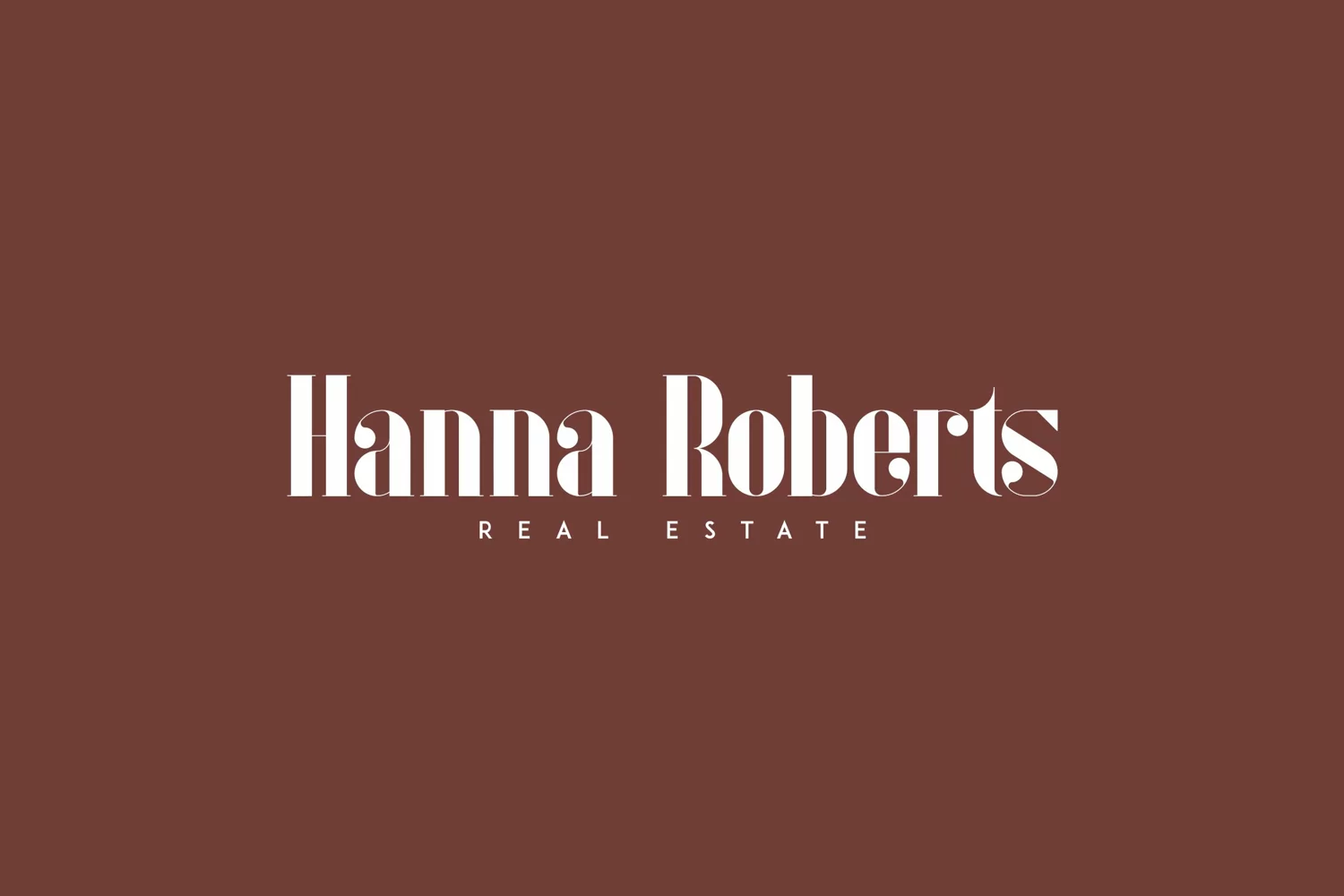
Modern Heritage Minimalist Sans Serif Font
Introducing Inure Serif
Inure is bold, vintage font with ligature glyphs and multilingual support.
It's a very versatile font that works great in large and small sizes.
Inure is perfect for branding projects, home-ware designs, product packaging, magazine headers - or simply as a stylish text overlay to any background image.